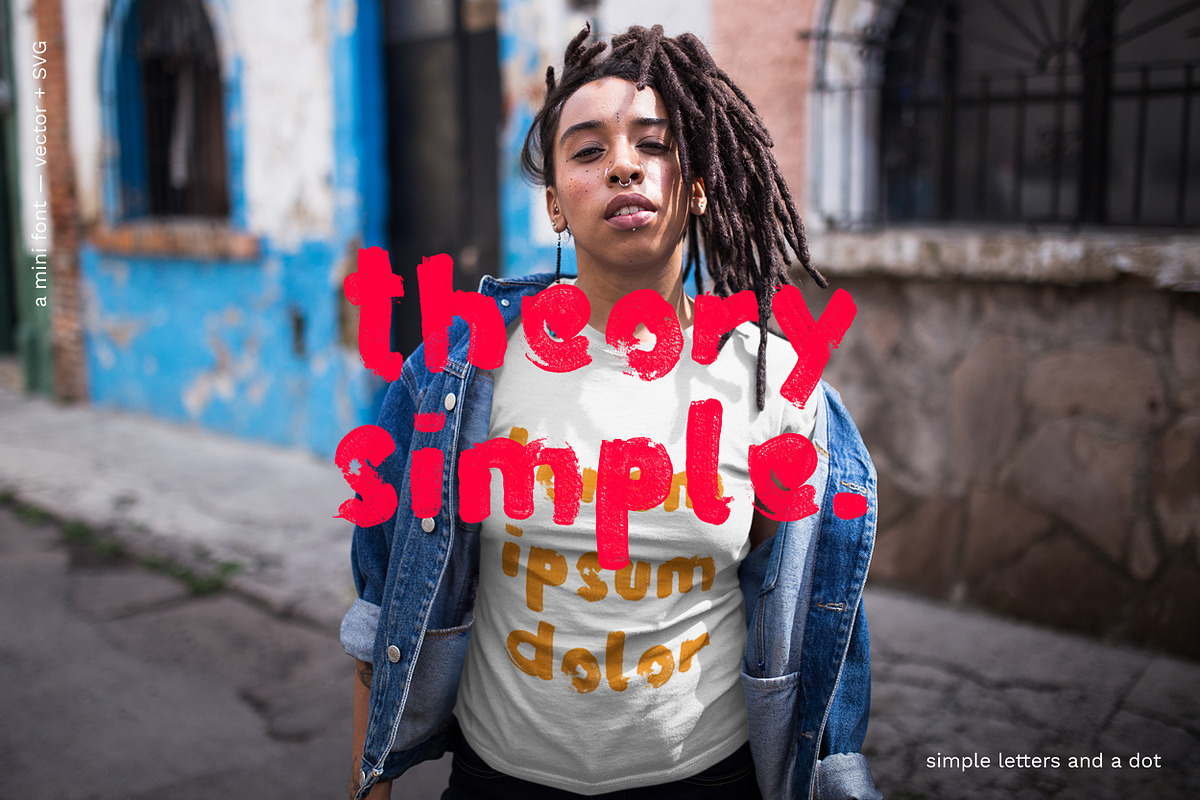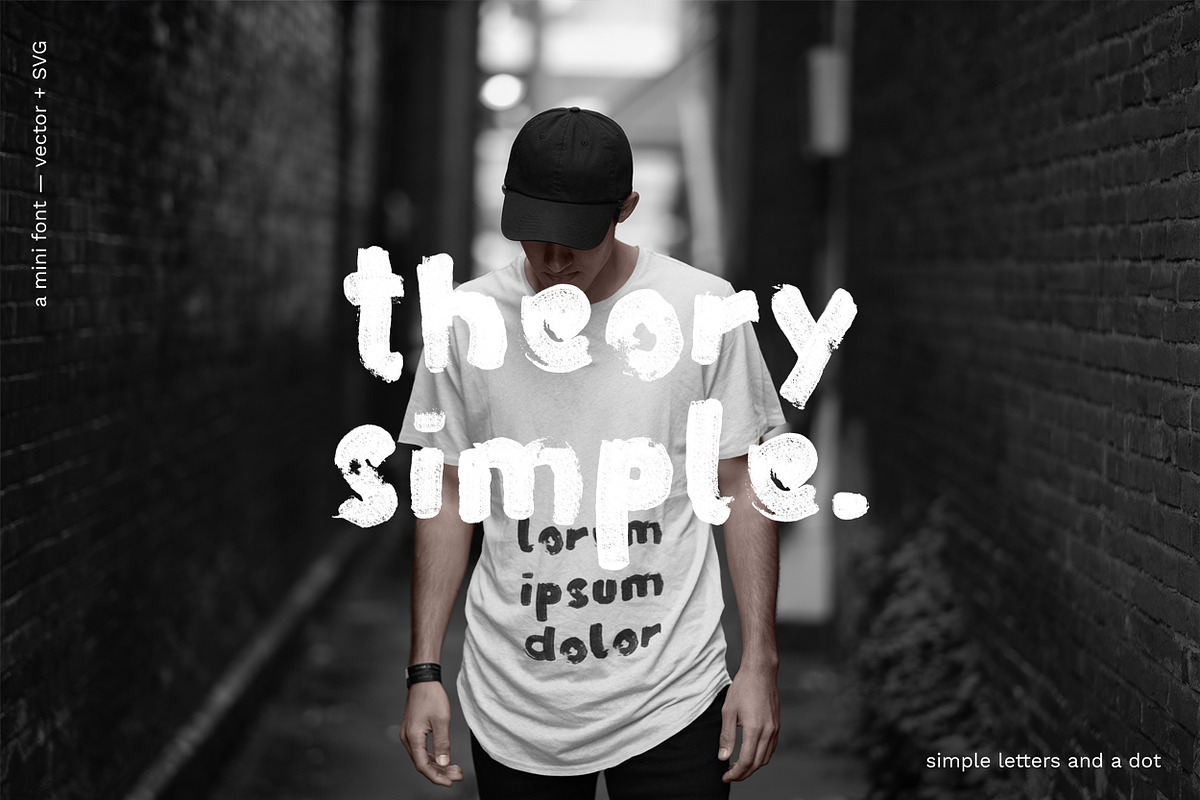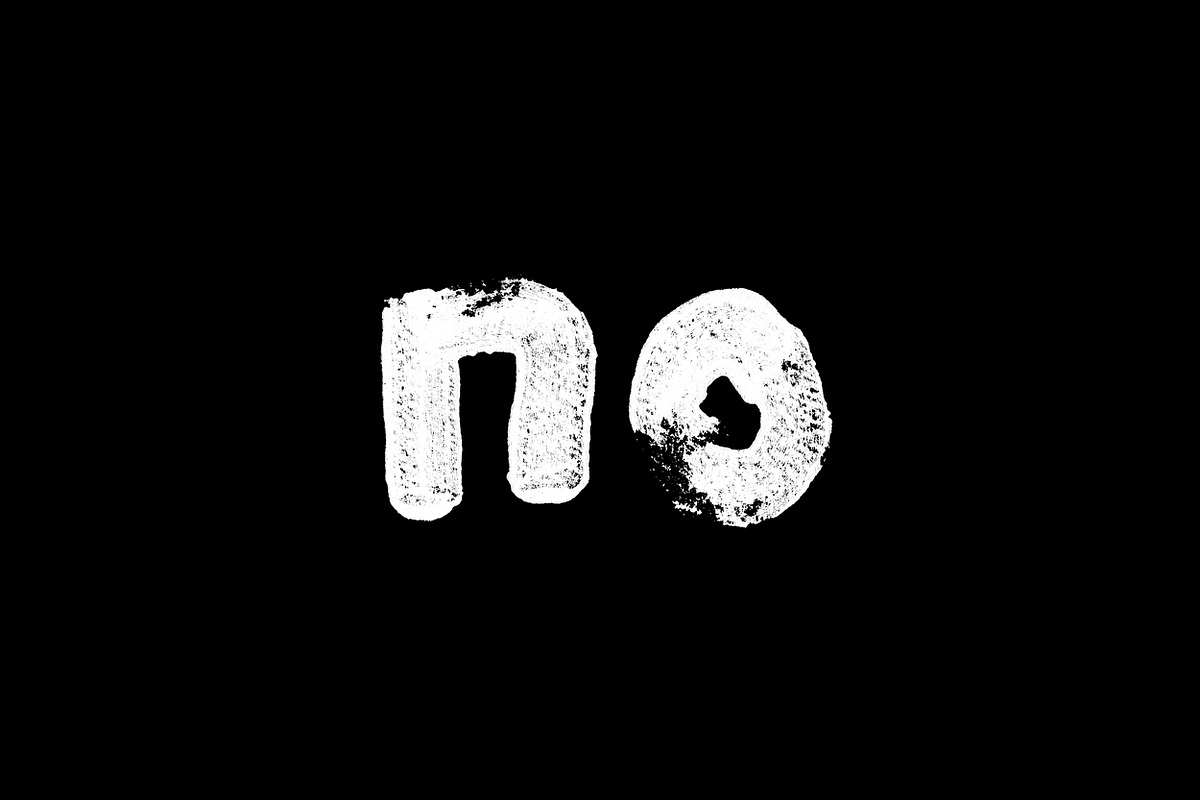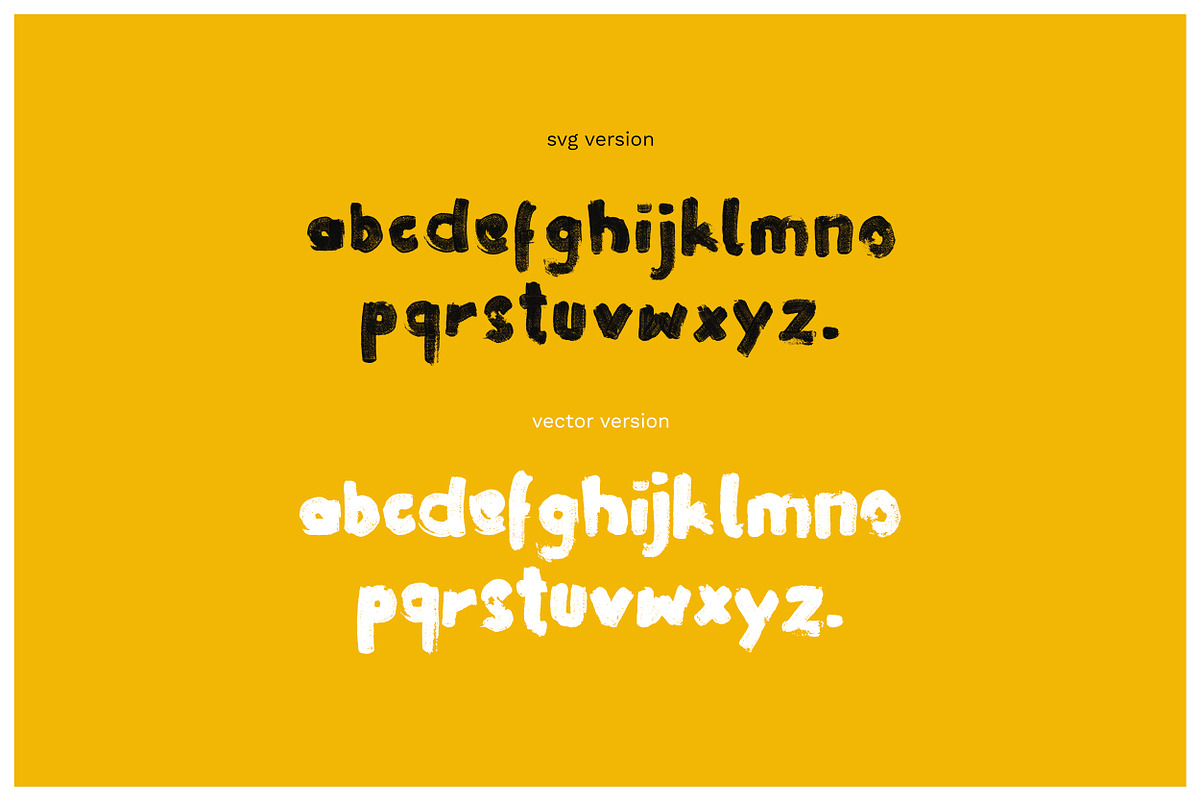
Theory Simple - mini font
Theory Simple is a display font with 26 letters and a dot. It was made with acrylic color painted with cardboard on paper.
PLEASE NOTE: This is a simple mini font without special characters. The only punctuation mark is the dot.